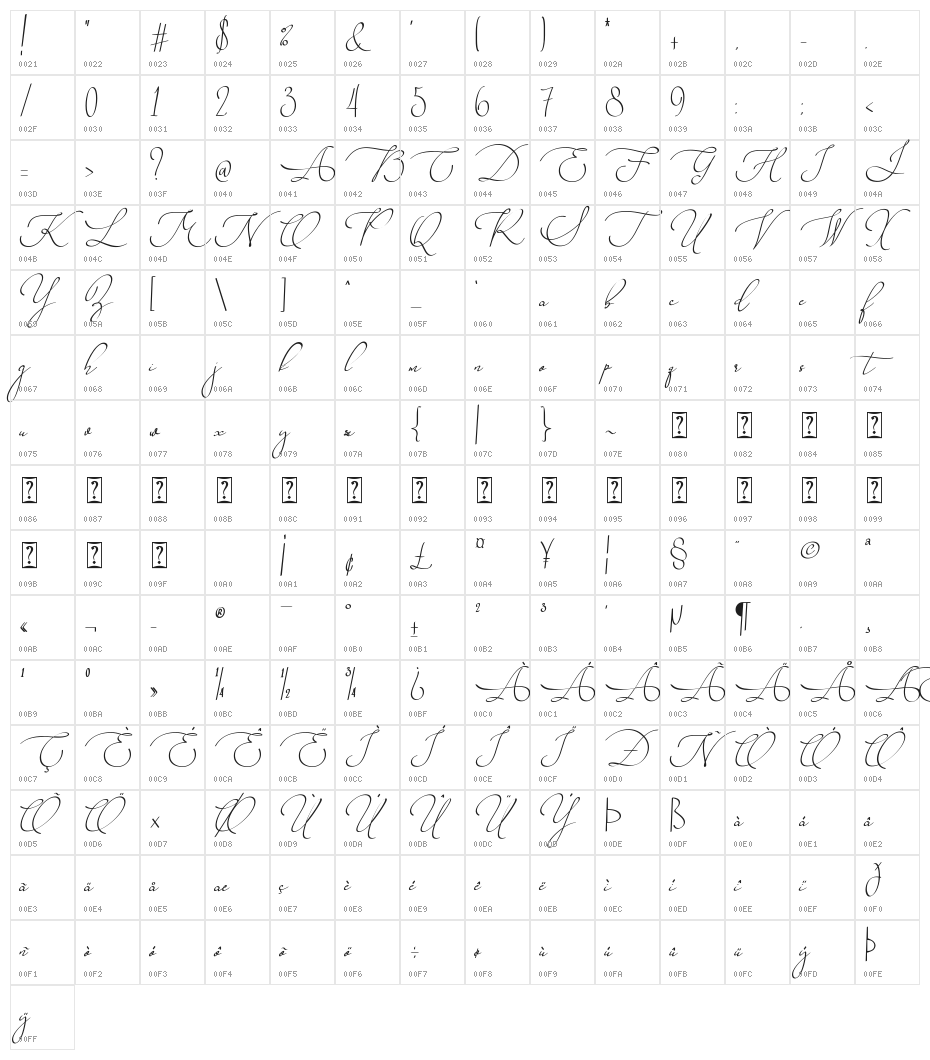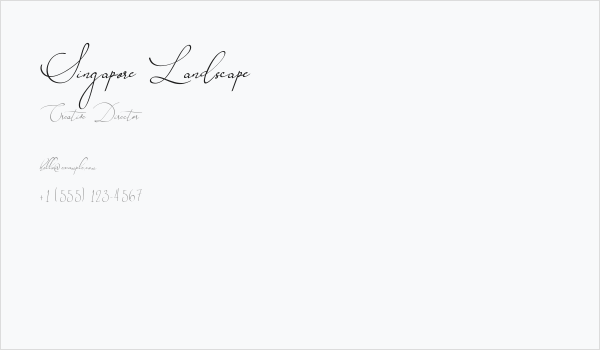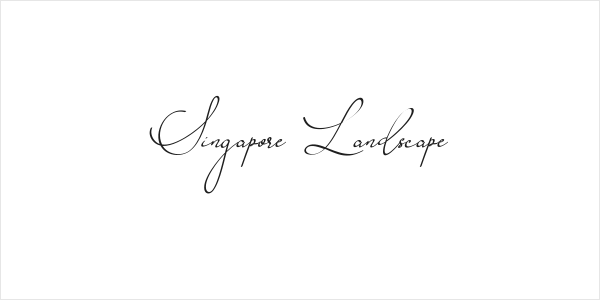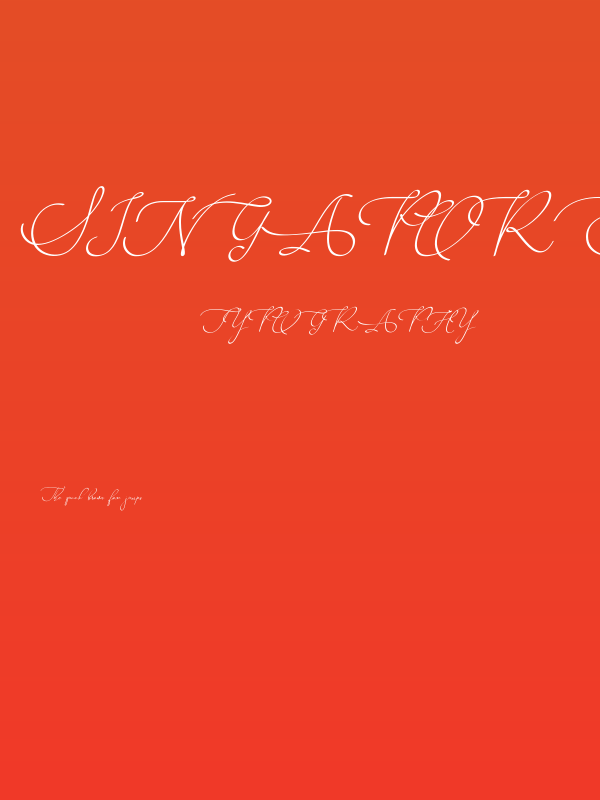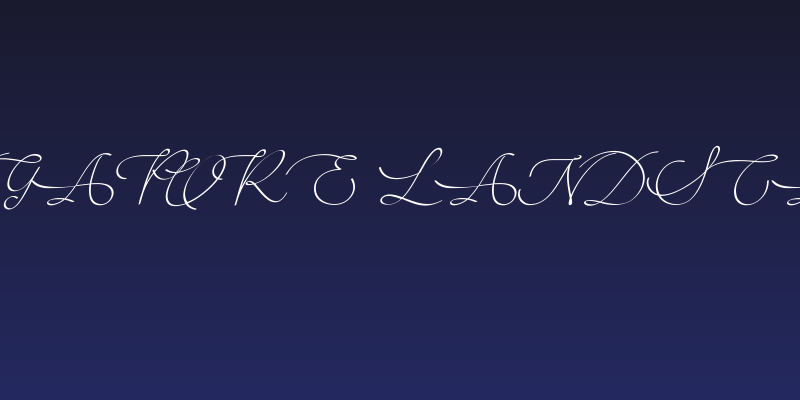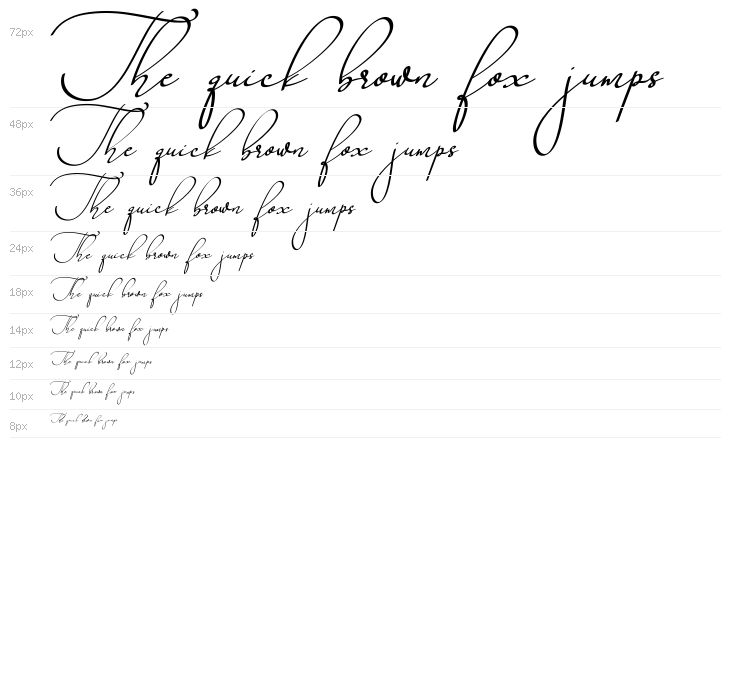
Singapore Landscape Font
Singapore Landscape Description
This elegant script font features a flowing, cursive style with delicate, sweeping strokes that give it a sophisticated and artistic appearance. The uppercase letters are characterized by their graceful loops and flourishes, while the lowercase letters maintain a consistent, fluid motion. The numerals are stylishly elongated, complementing the overall aesthetic. Special characters are thoughtfully designed to match the font's refined nature. This font exudes a sense of elegance and charm, making it ideal for projects that require a touch of class and creativity.
| Proposed Projects | Ideal for wedding invitations, elegant branding, personal stationery, and artistic projects. |